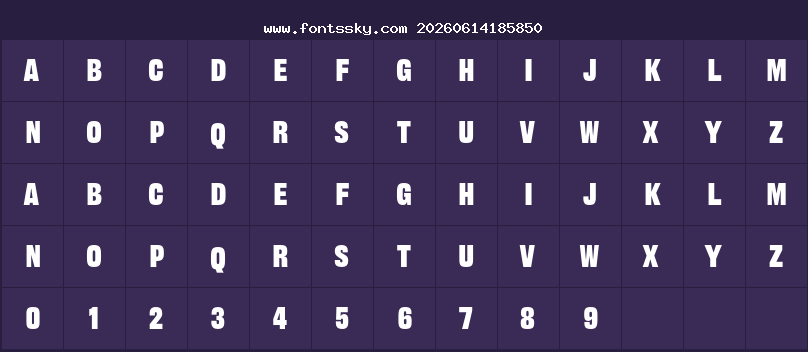
Frick 0.3 Condensed Preview
• Font Name: Frick 0.3 Condensed
• Full Font Name: Frick 0.3 Condensed
• Designer: Dennis Grauel
• Manufacturer: Dennis Grauel
About Frick 0.3 Condensed.otf
Frick 0.3 Condensed.otf is a modern, elegant sans-serif font designed for ultimate readability and visual harmony. Perfect for branding, headlines, web design, and print materials.